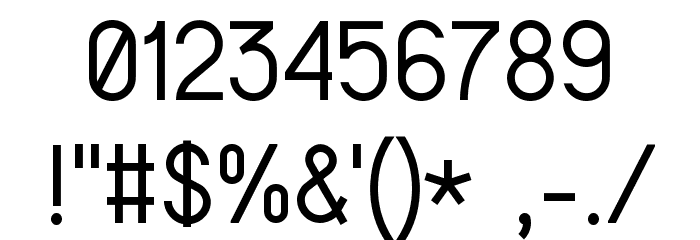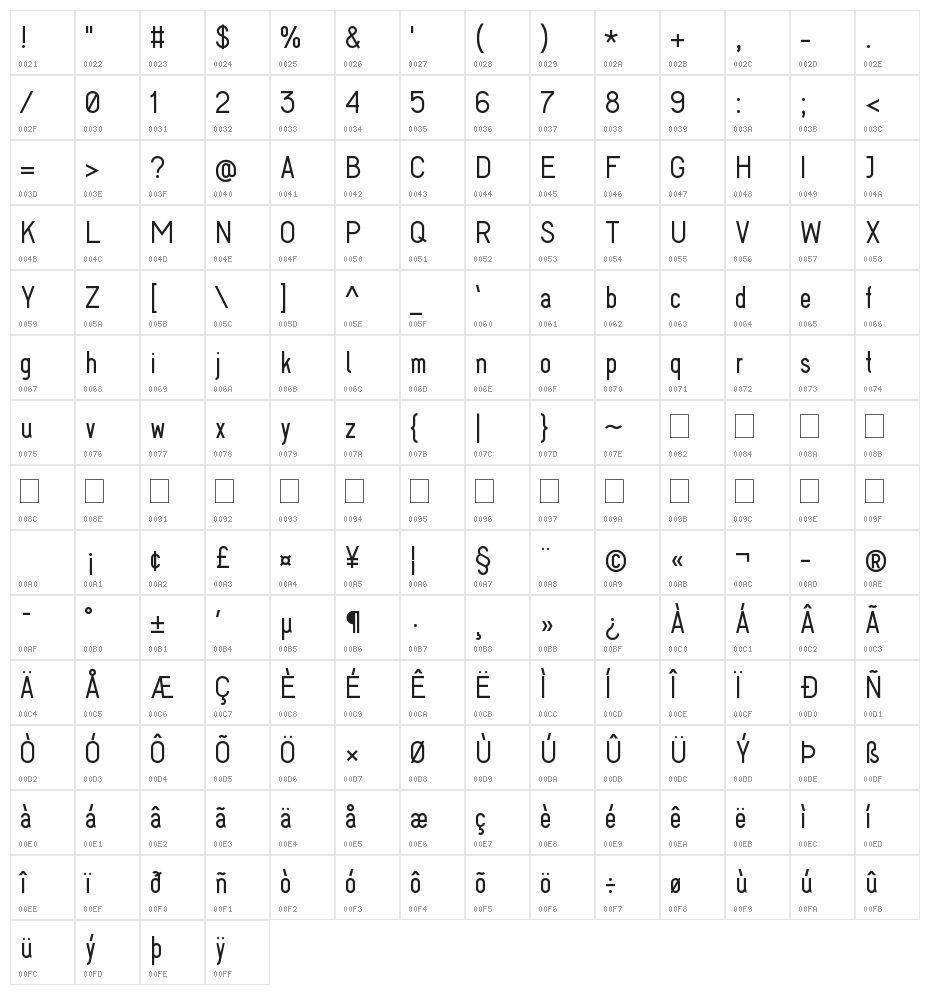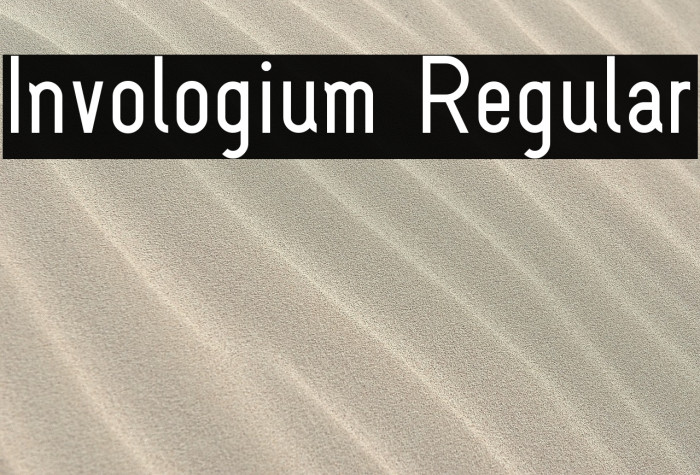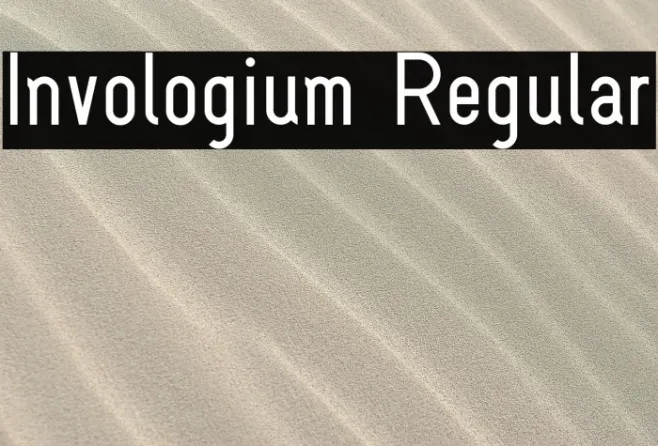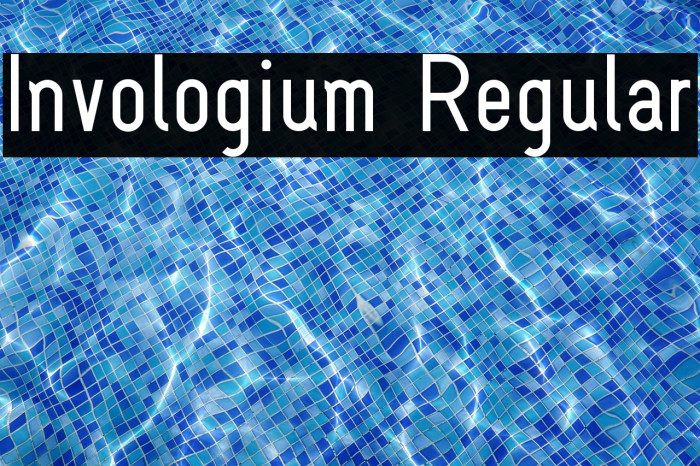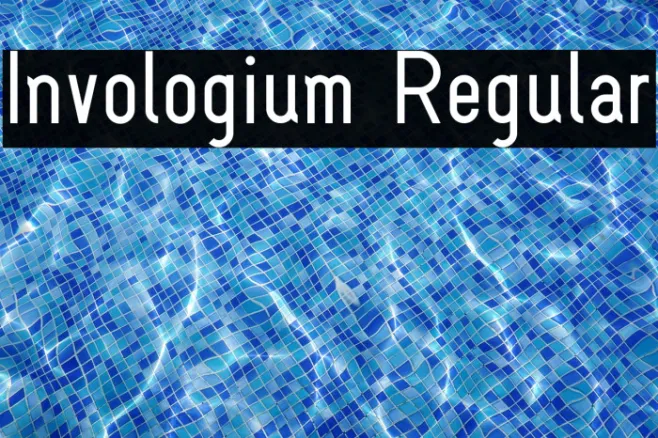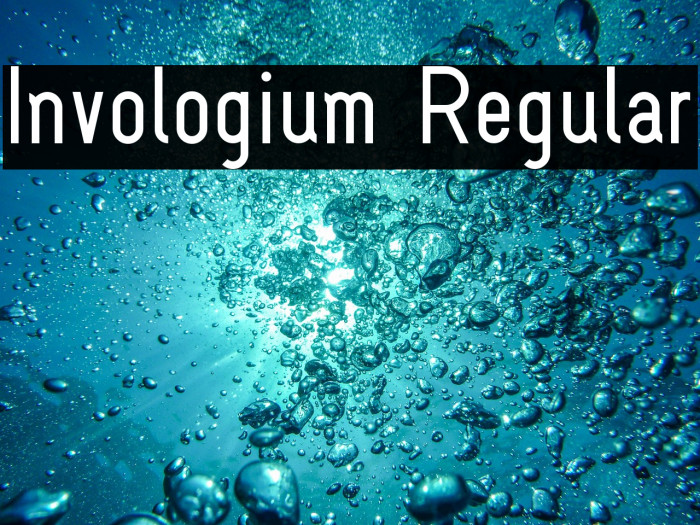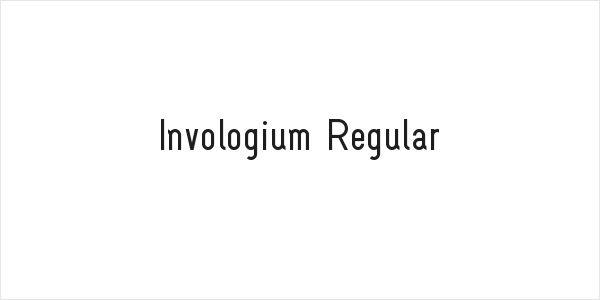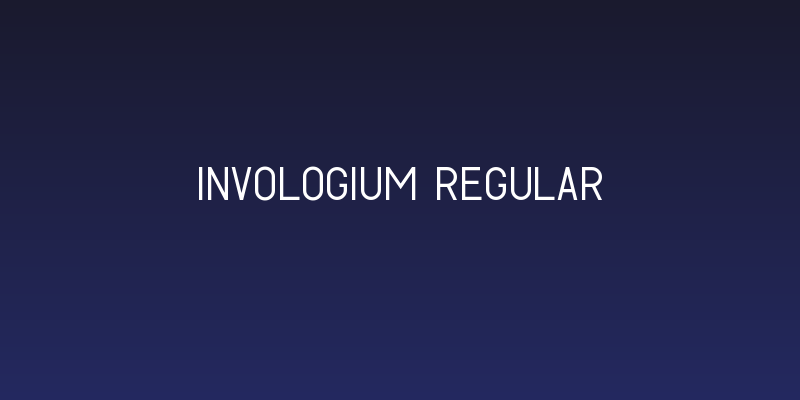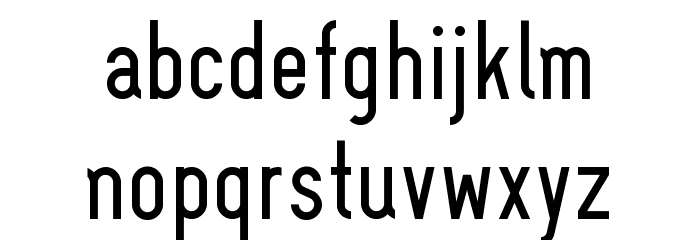
Invologium Regular Font
Invologium Regular Description
This font exhibits a clean and modern sans-serif style, characterized by its uniform stroke width and geometric letterforms. The uppercase letters are tall and slightly condensed, providing a sleek and professional appearance. The lowercase letters maintain a consistent x-height, ensuring readability across various sizes. The numerals are clear and distinct, making them suitable for both text and display purposes. Special characters are well-integrated, maintaining the overall aesthetic of the typeface. The design is versatile, suitable for both digital and print media.